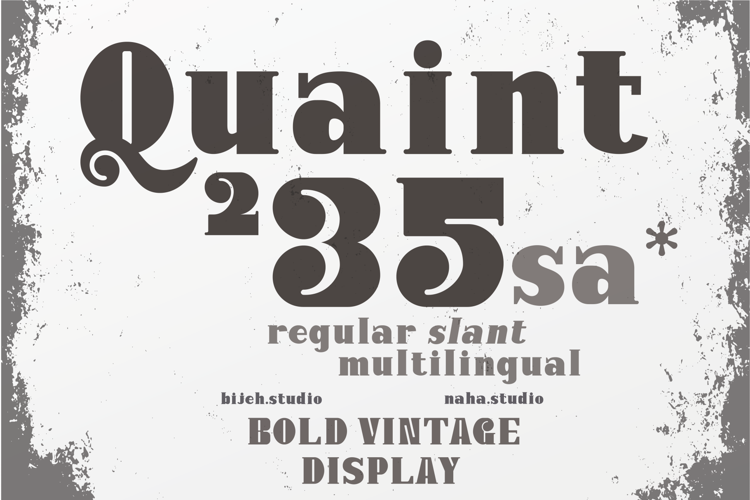
Quaint 235 Font
Slant Style
Quaint 235 is a regular and slant font with a modern concept with a bold typeface,
good for products and very suitable for use as a display font and also as a header.